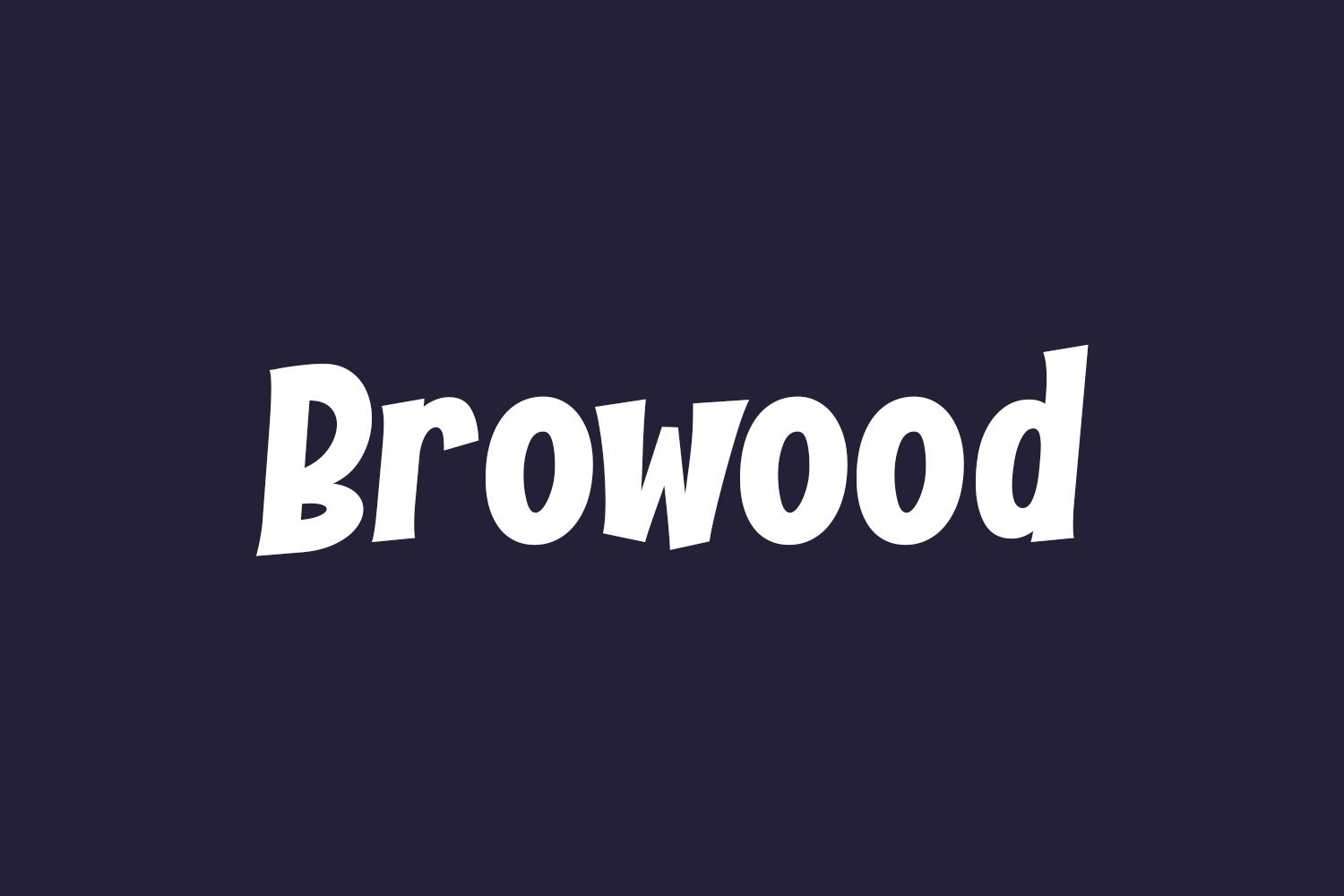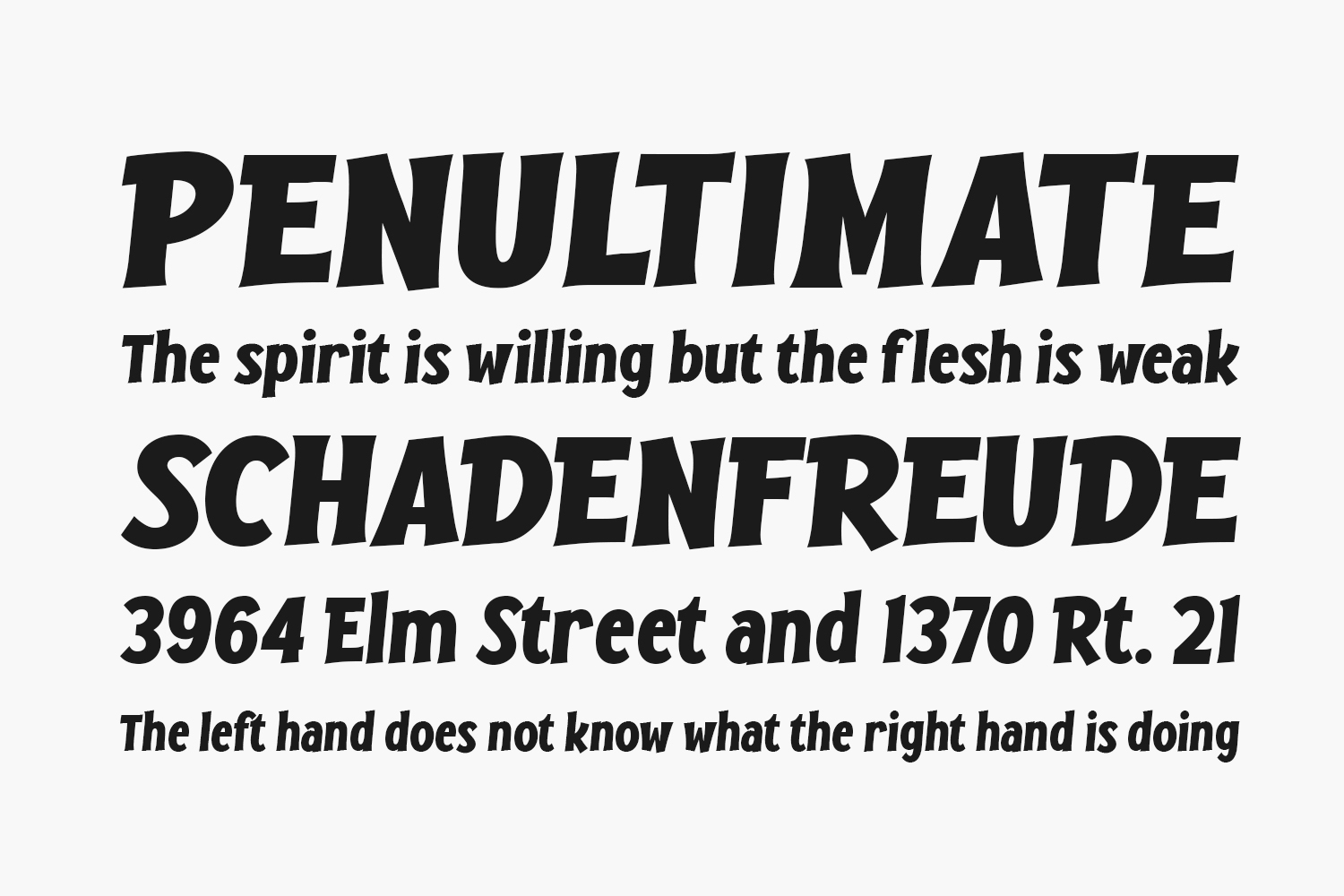
Explore Browood Free Font, a vibrant and bold comic display font that exudes a playful and fun vibe with its distinctive style. Let its unique charm inspire you and transform any design project into a true standout masterpiece. Browood Free Font was designed by Alit Design and is free for personal use only. Please purchase the full version for commercial use.